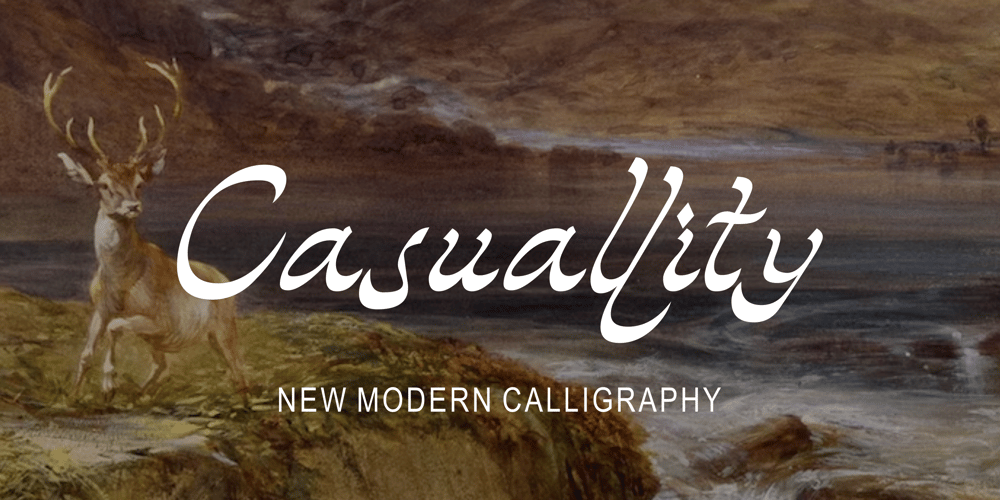
Casuallity Font Family was designed by Zamjump and published by Zamjump. Casuallity contains 1 styles and family package options. Introducing “Casuallity,” a stunning calligraphy-style font meticulously crafted by hand, designed to infuse elegance and charm into your creative projects. Casuallity Font embodies a perfect blend of fluidity and sophistication, making it an ideal choice for a wide range of design applications, including logo design, branding, book covers, and more. __________________________________________________________________________________HOW TO ACCESS THE ALTERNATIVE CHARACTERS Open the glyph panel:In Adobe Photoshop go to Window – glyphsIn Adobe Illustrator, open Type – glyphsFollow my shop for upcoming updatesthank you